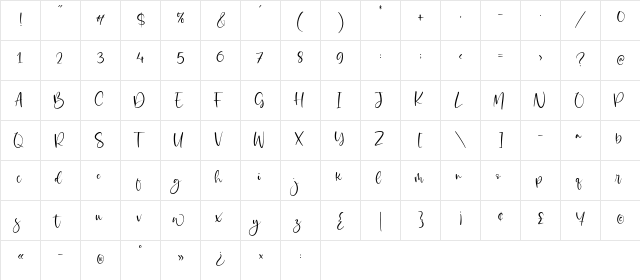
Wicked Dream Regular
Design Context for Wicked Dream Typeface
Wicked Dream is a composed and adaptable typeface that performs quietly and consistently across a wide range of design contexts.